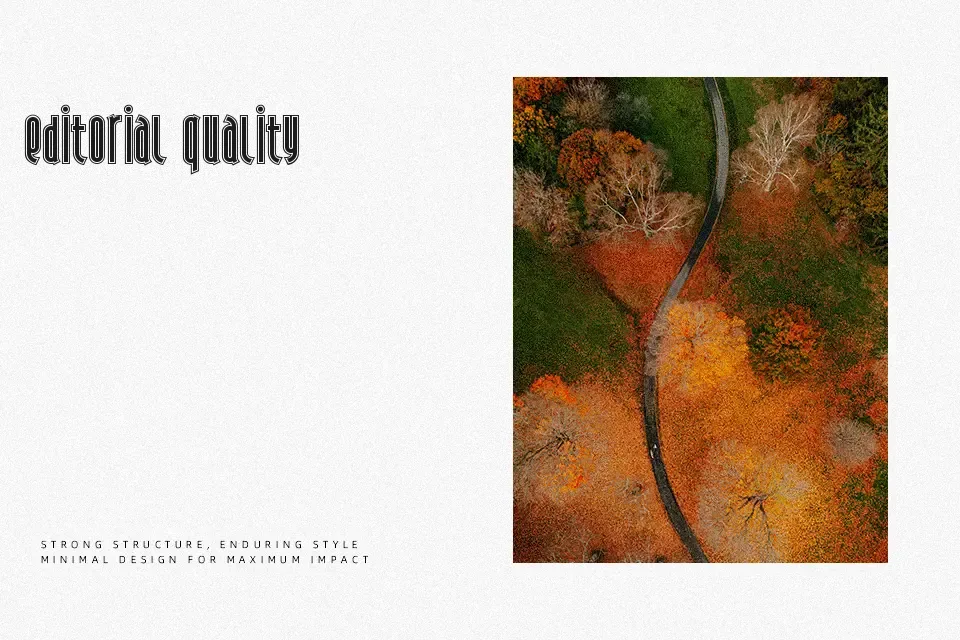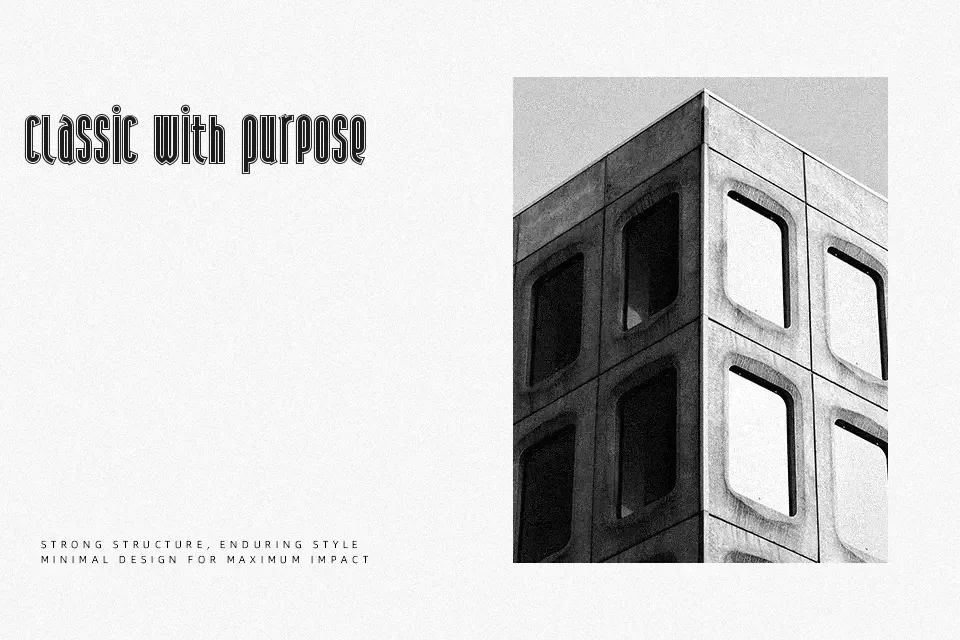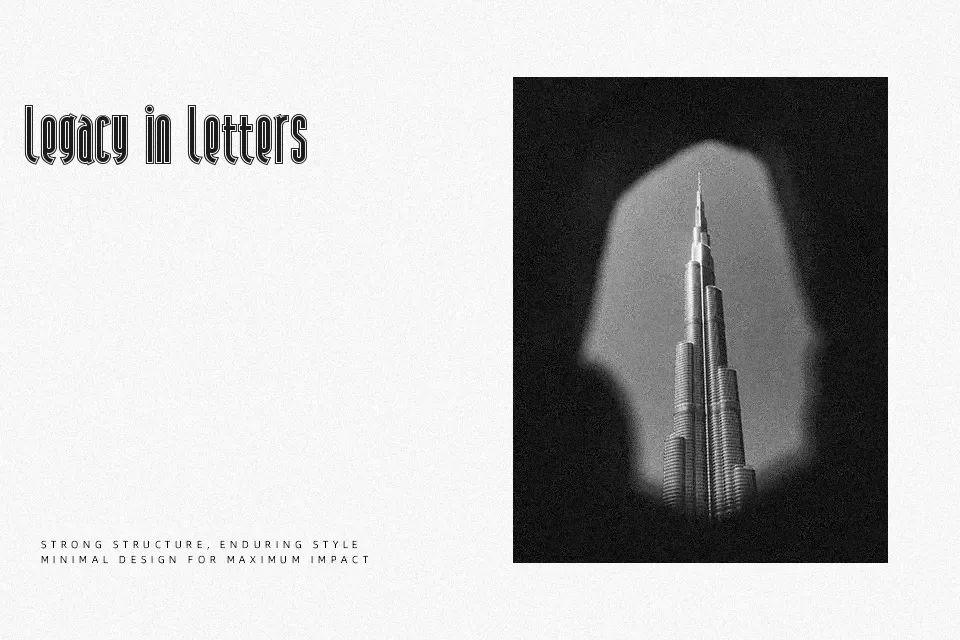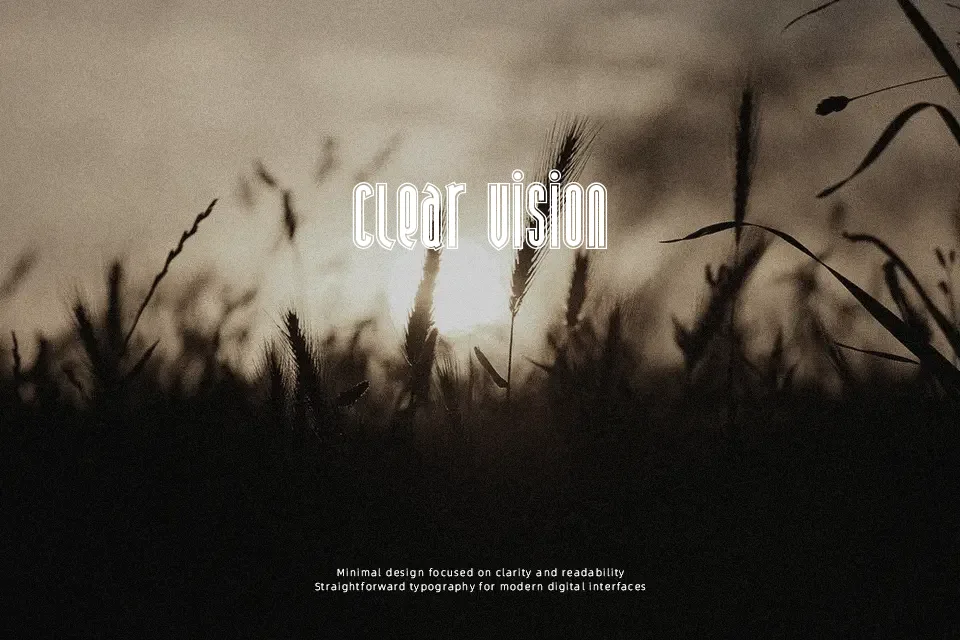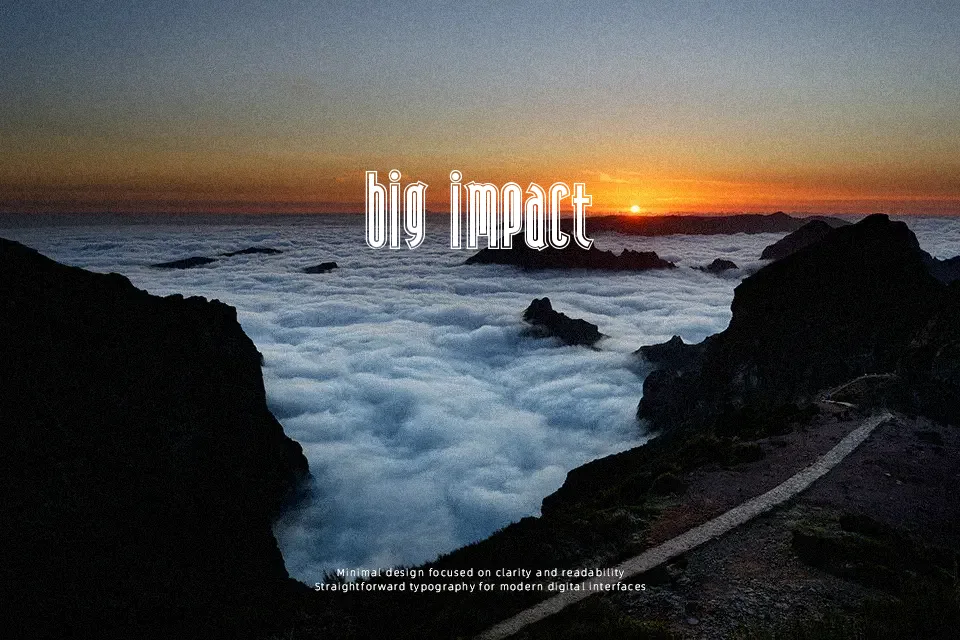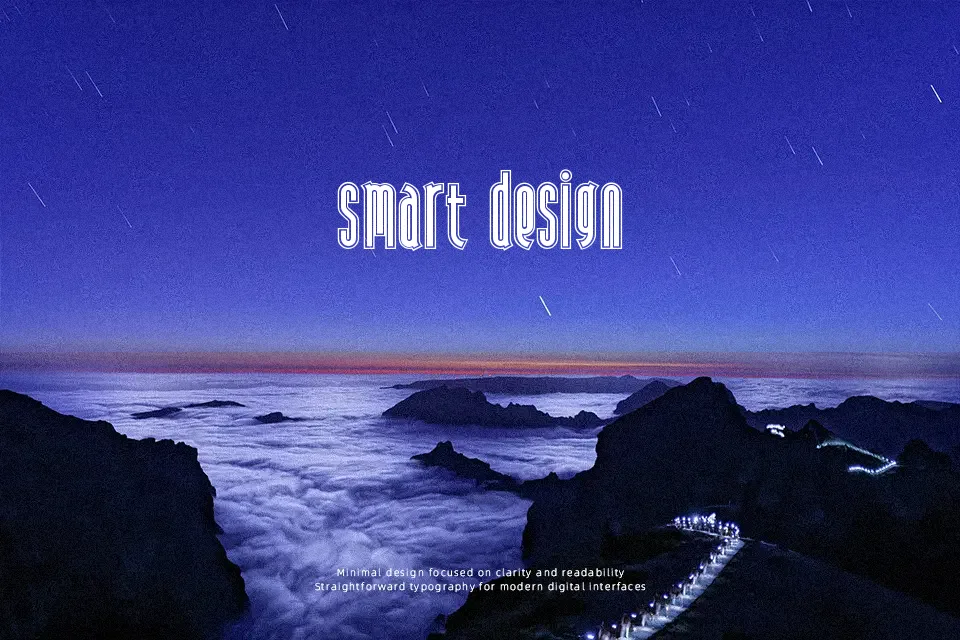
Andiron Outline Font
Designed by Nick Curtis
Andiron Outline carries a strong architectural character rooted in mid-century display lettering. Designed by Nick Curtis around 2000, the font features semi-bold outlined strokes with hollow interiors that create a layered, dimensional appearance. The letterforms lean sans-serif in structure but carry enough decorative weight to feel purposeful rather than neutral. Spacing is moderate, and the overall rhythm works best at large sizes — think poster headlines, storefront signage, or retro-themed packaging labels. The outlined treatment gives it a screen-printed, hand-crafted impression that suits throwback branding and event materials. Where it falls short is body text or any context demanding quick legibility; below 24pt, the hollow strokes begin to collapse visually. Compared to solid retro display faces, Andiron Outline trades punch for personality — a worthwhile trade when the layout can breathe.
Perfect for advertising, branding, and headline, with a bold and decorative style.